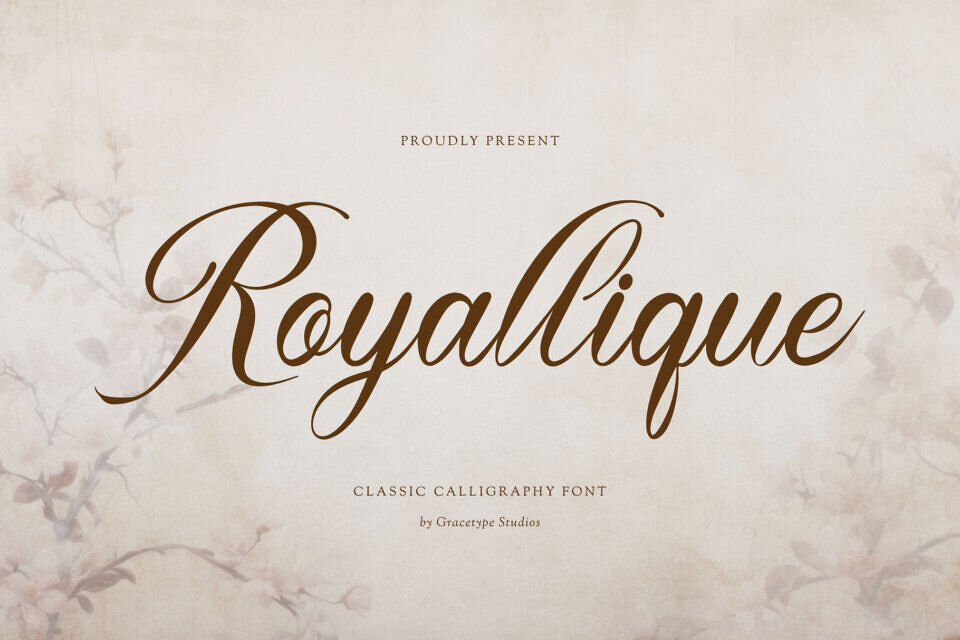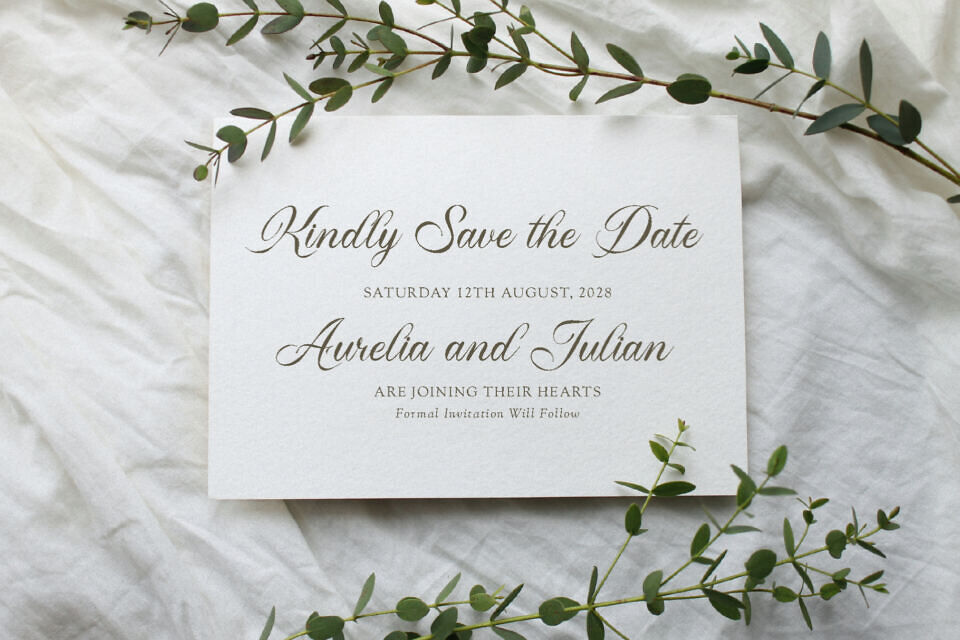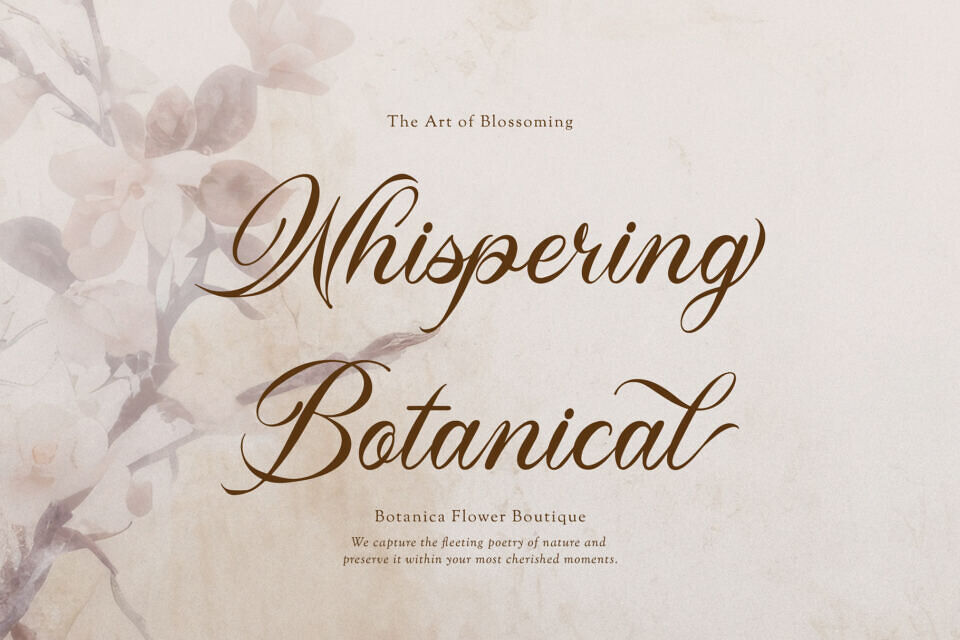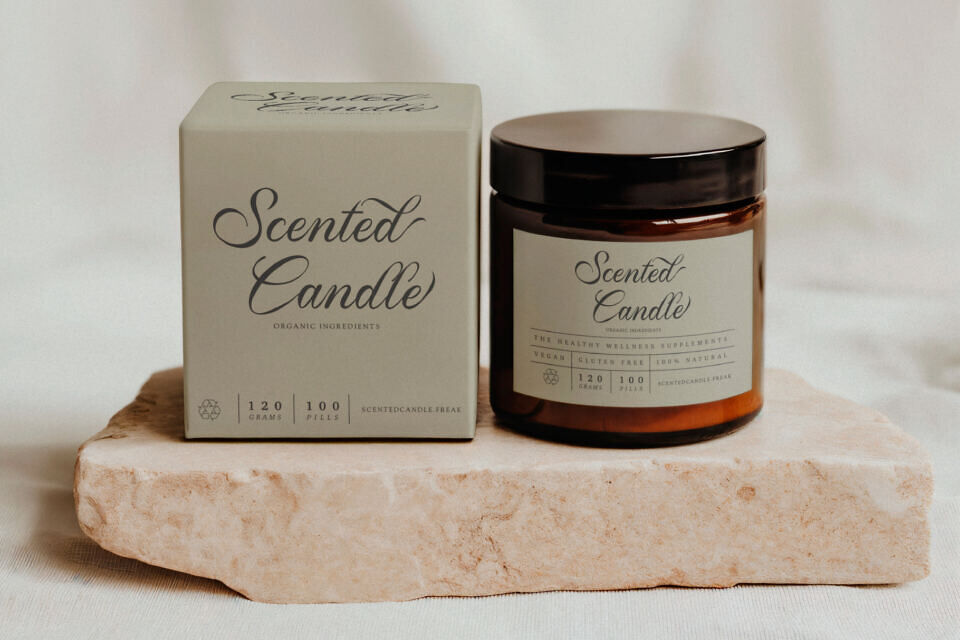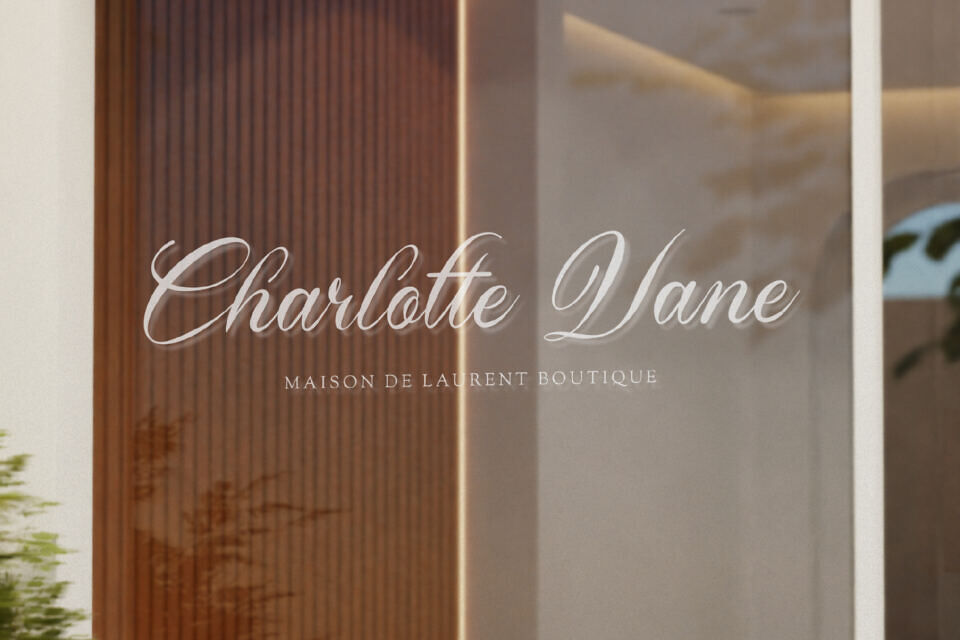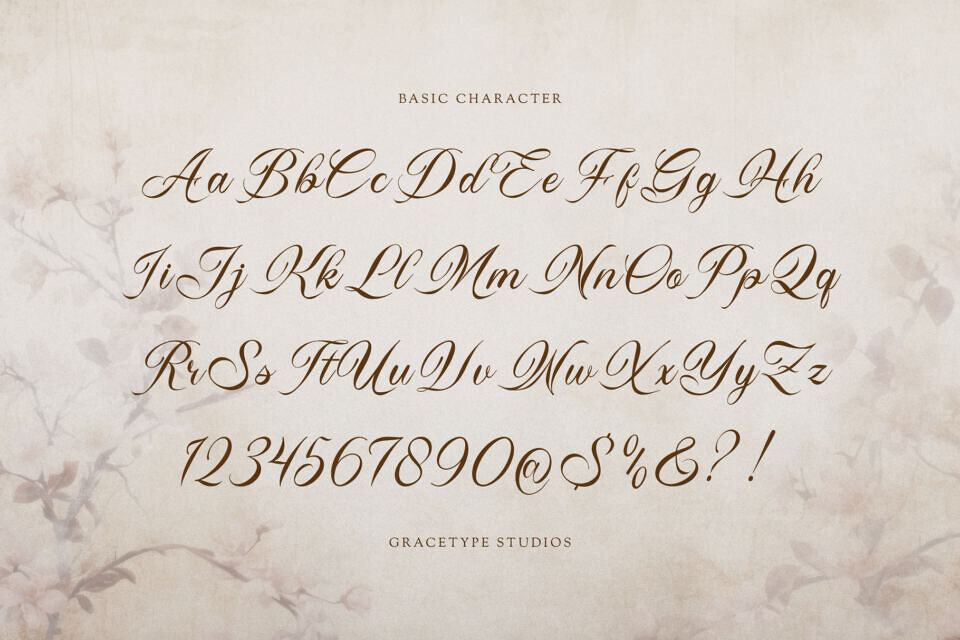
Royallique Font
Add a touch of sophistication to your design with Royallique, a elegant cursive script font. Its medium-contrast, flowing strokes feature wide loops and sweeping ascenders, evoking traditional signature artistry. Perfect for luxury applications, Royallique is ideal for high-end wedding invitations, winery logos, and boutique fashion titles, bringing a refined and exclusive feel to your brand.